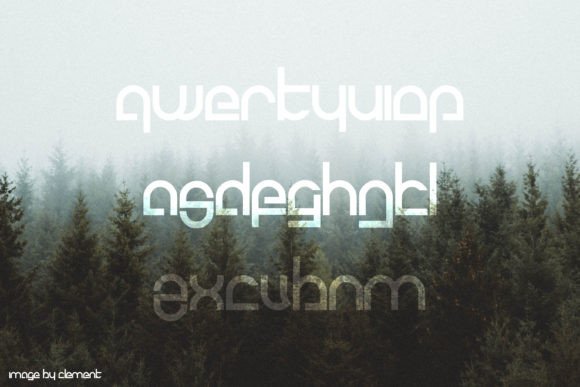
Introduction to Naumi Font
Naumi font is perfect for making any design stand out.
Its modern, elegant lines and unique style make it a great choice for adding a touch of sophistication to any project .
Key Features of Naumi Font